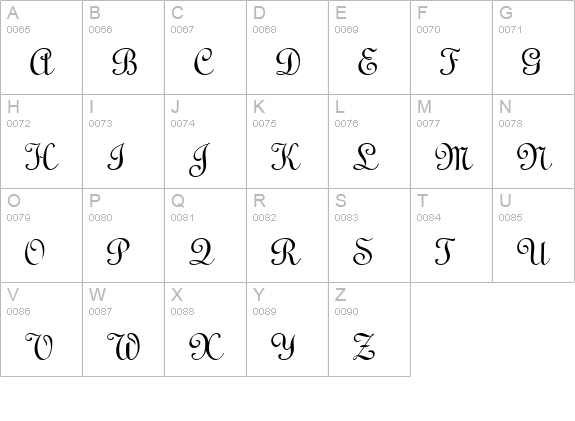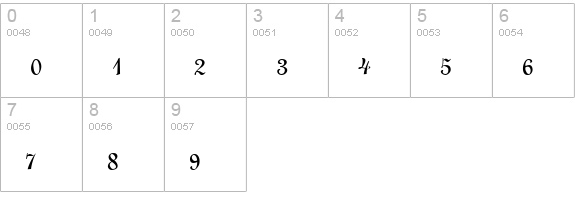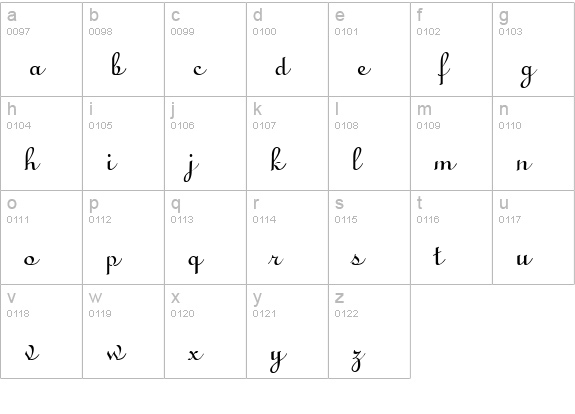
QTLinostroke Regular Font Details
QTLinostroke Regular is the standard, neutral variant in the QTLinostroke typeface family \xE2\x80\x94 well suited to general body text, paragraphs, and standard typographic work.
QTLinostroke Regular is a versatile and elegant font that is perfect for various design projects. With its clean and modern strokes, this typeface exudes sophistication and professionalism. This font features a unique combination of thick and thin lines, giving it a distinctive and eye-catching appearance. Whether you are creating logos, branding materials, or advertising campaigns, QTLinostroke Regular will elevate your designs to new heights. One of the standout features of this font is that it is available for free download at FontsMarket.com. This means that you can easily access and use this font without any hassle or cost. Its availability for free makes it a great choice for designers and creatives on a budget. QTLinostroke Regular is also highly legible, making it suitable for both print and digital applications. Whether you are designing a website, a magazine layout, or a poster, this font will ensure that your message is communicated clearly and effectively. The versatility of QTLinostroke Regular extends to its character set, which includes a wide range of punctuation marks, symbols, and accents. This means that you can use this font to create designs in multiple languages and cater to a diverse audience. In conclusion, QTLinostroke Regular is a free and visually stunning font that will enhance your design projects. Its clean lines, versatility, and availability for free download at FontsMarket.com make it a must-have for any designer looking to create impactful and professional designs.